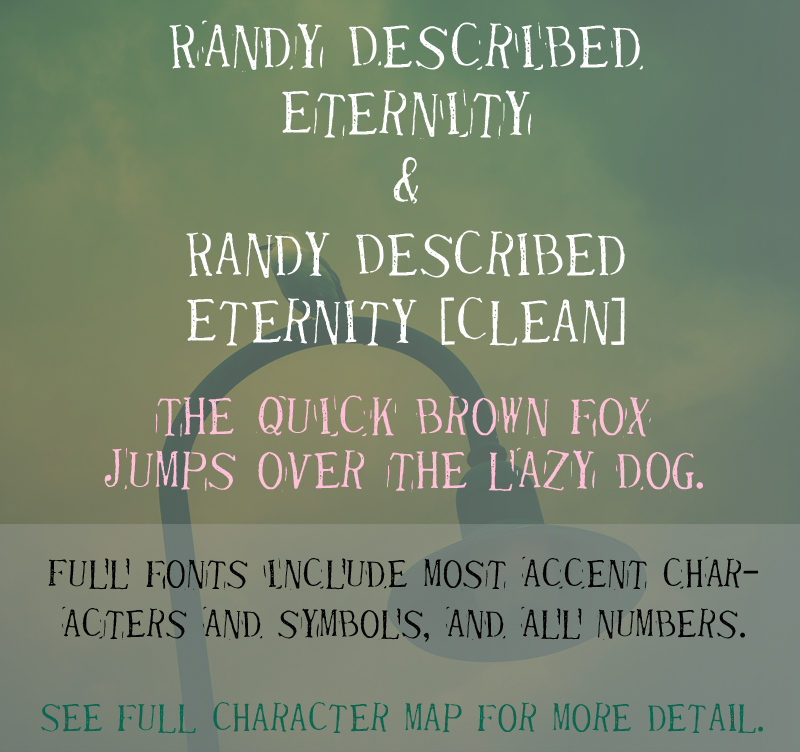
Font name: | Randy Described Eternity |
Author: | Quick Brown Fox Fonts |
Note by Quick Brown Fox Fonts | |
The Randy Described Eternity font was created from dollar store stamps, which I still use to this day on birthday and holiday cards. The font was originally released in August 2001. In February 2016, I added several more characters to the set, including accent characters. I also created a second font called Randy Described Eternity Clean. It is nearly identical, except I removed the rubber stamp edges from each character and brought the characters a little closer together. It may be a little easier to read. Both fonts are included in the same demo download and purchase. This is a DEMO version of the font. It includes only uppercase and lowercase letters. You can use the demo version for personal use. The full version of the font, which can be purchased very very cheaply at QuickBrownFoxFonts.com, also contains numbers, most puncuation, most accent characters, and many symbols. You can view the full character map at QuickBrownFoxFonts.com. Purchase of the full version entitles you to a full license of the font, with which you can use the font commercially in any project. |